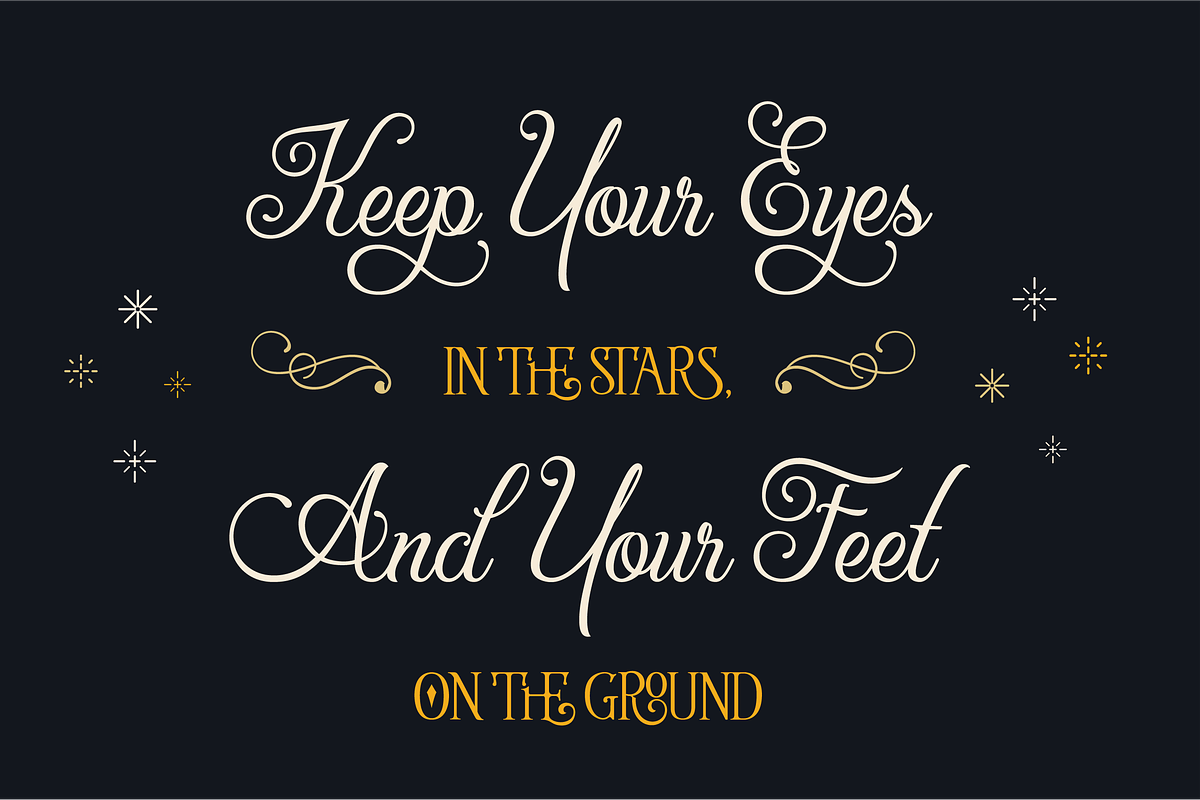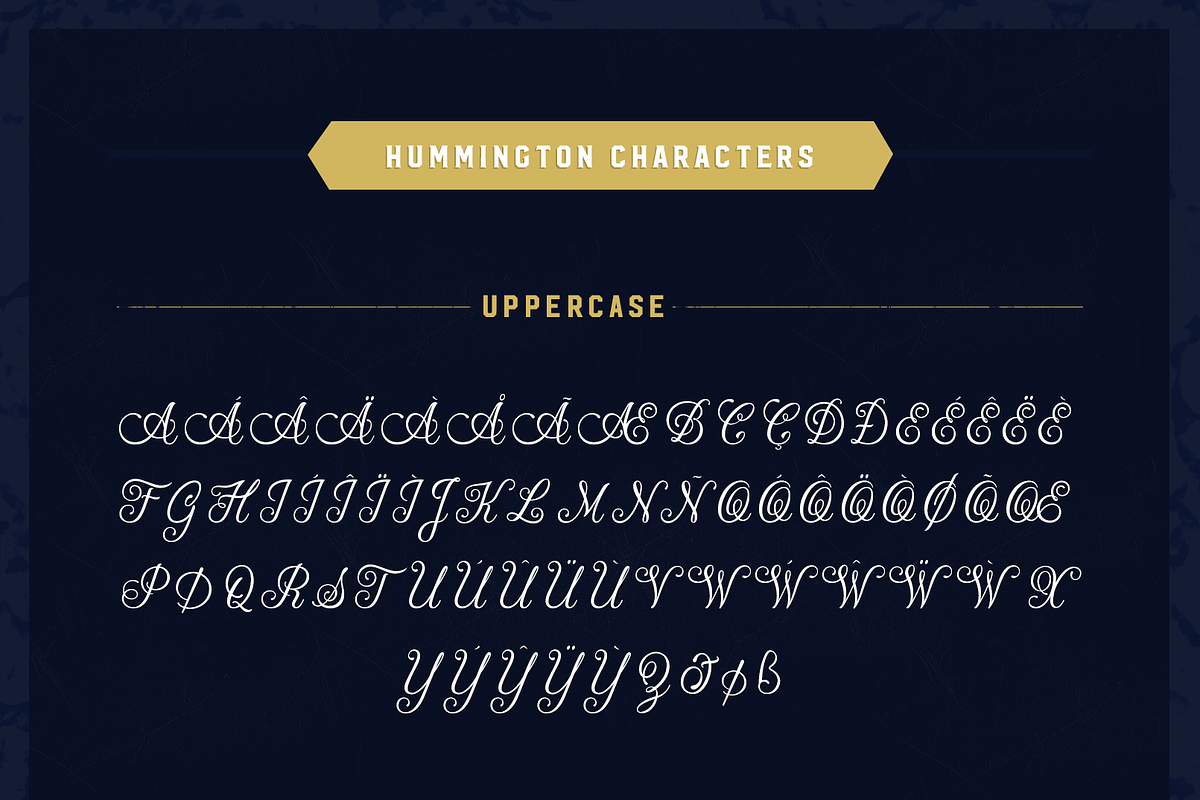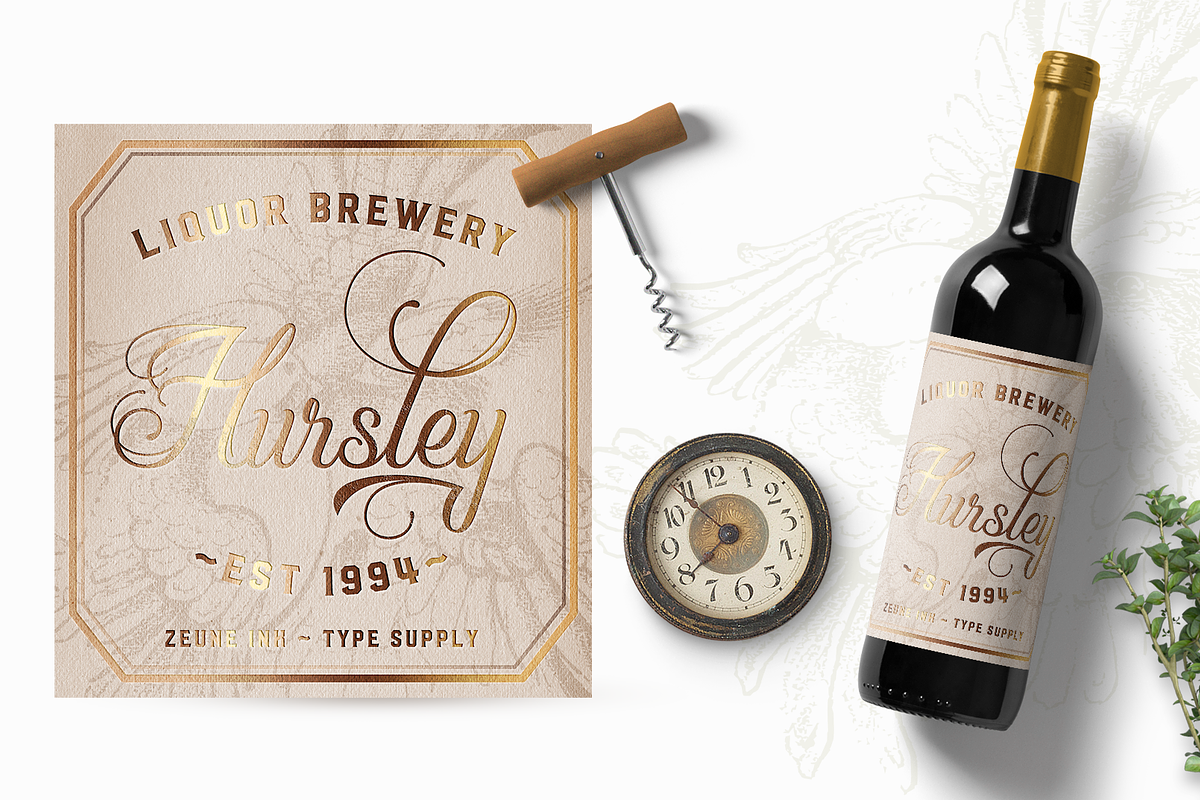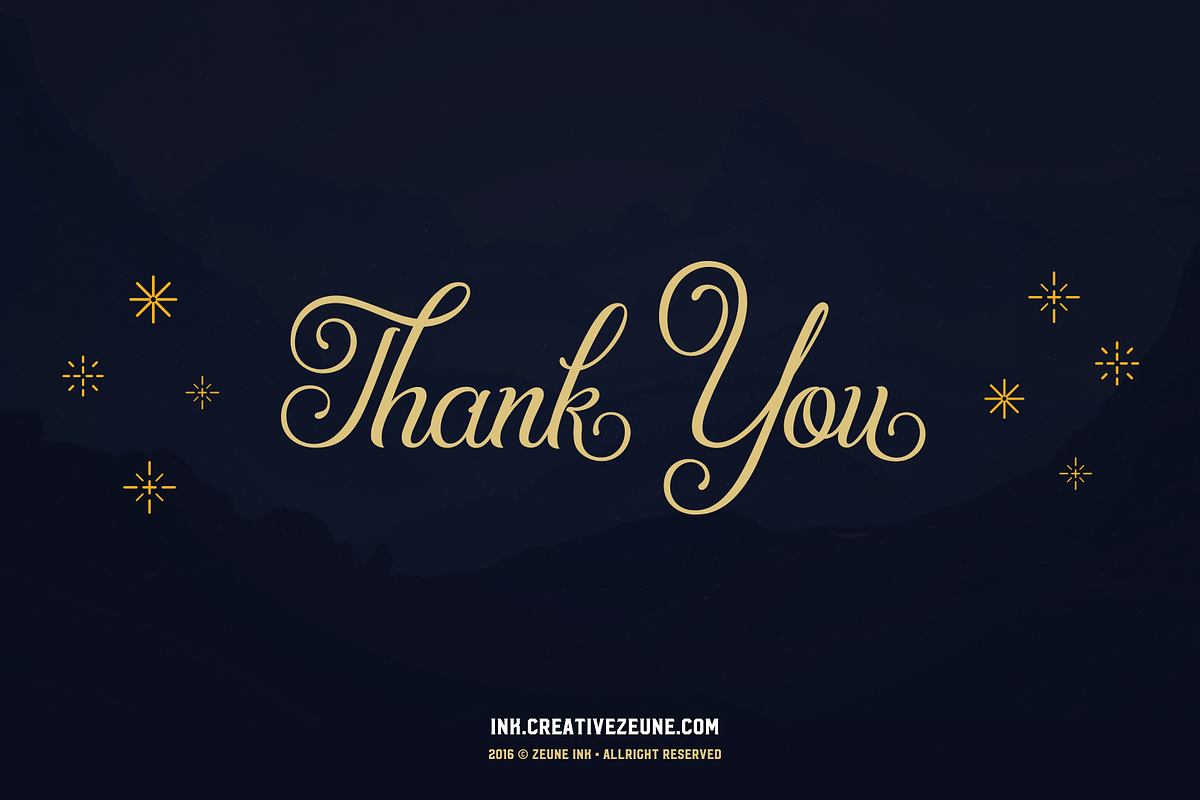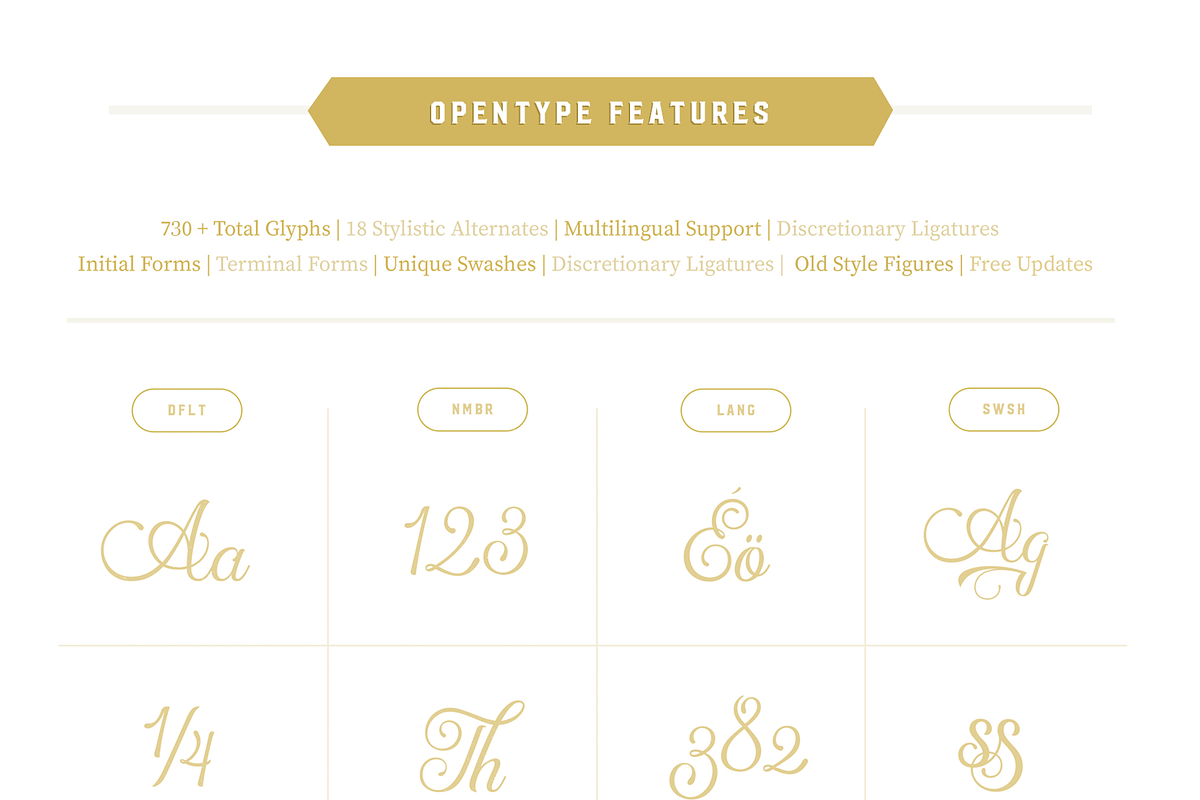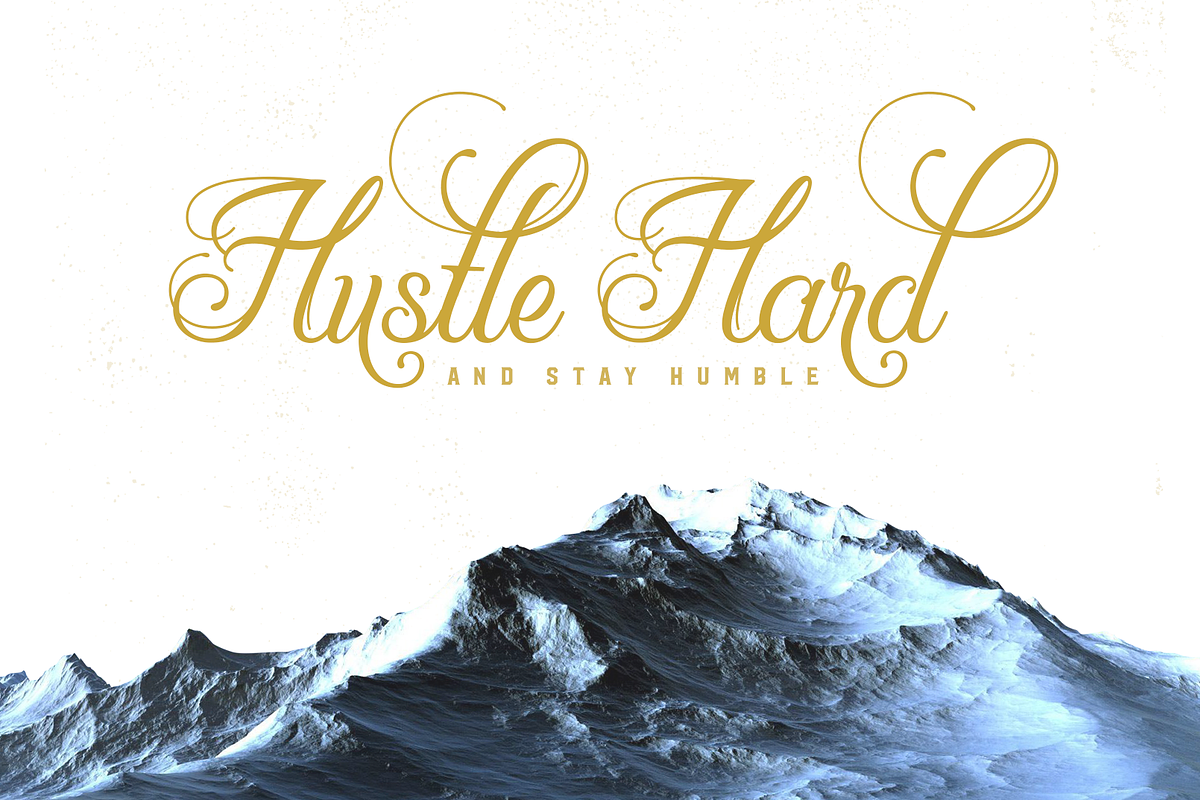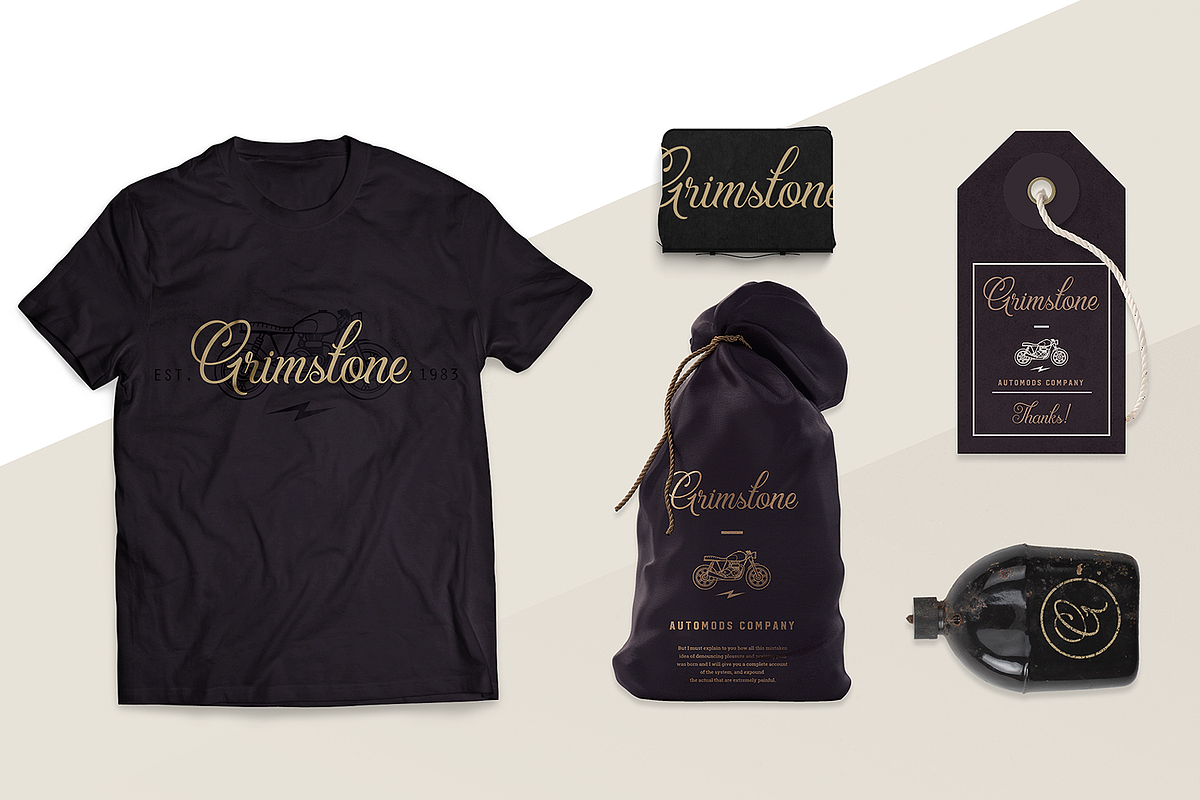
Hummington
HUMMINGTON
Hummington is an elegant script typeface with a ton of OpenType features, which will help make your designs and digital creations stand out.
This font is consist of 700+ characters, 16+ stylistic set alternates, elegant swashes, unique ligatures, old-style figures and multi language support.
Hummington was crafted with precise shapes and clean lines. Gorgeous swashes connections make combining letters easier, more fun, and outstandingly beautiful. This script typeface is perfect for a variety of projects, such as logo design, prints, displays, clothes, label designs, posters, cards and much, much more.